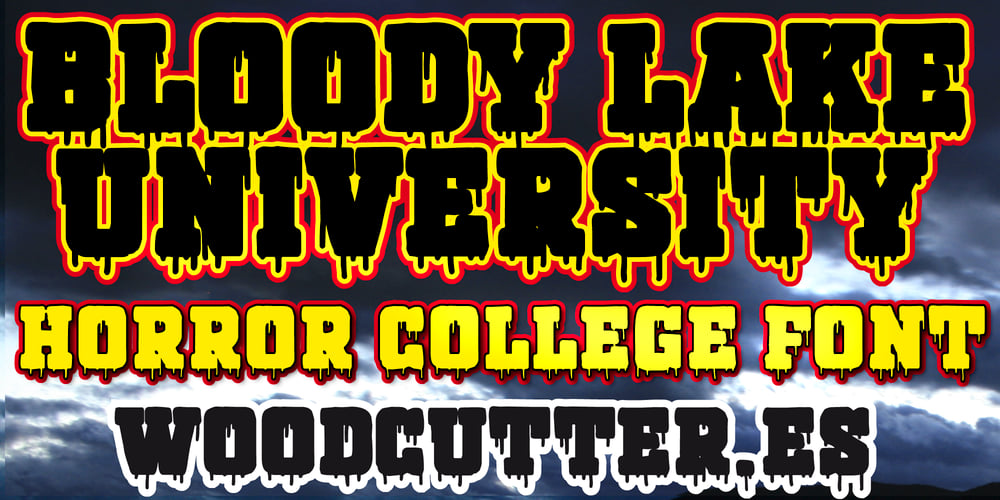
Bloody Lake University
Bloody Lake University font
Bloody Lake University Font Family was designed by Jordi Manero and published by Woodcutter. Bloody Lake University contains 1 styles and family package options. “Bloody Lake University” is a font that blends the classic aesthetic of collegiate typefaces with a distinctive horror style. Each letter appears to be bleeding, adding a macabre and dramatic touch to any design. Ideal for projects needing a spooky yet scholarly atmosphere, this font combines the authority of a college style with the fright of horror, creating a unique and powerful blend. Perfect for themed event posters, horror book covers, or any creation that demands an intense and terrifying visual impact.